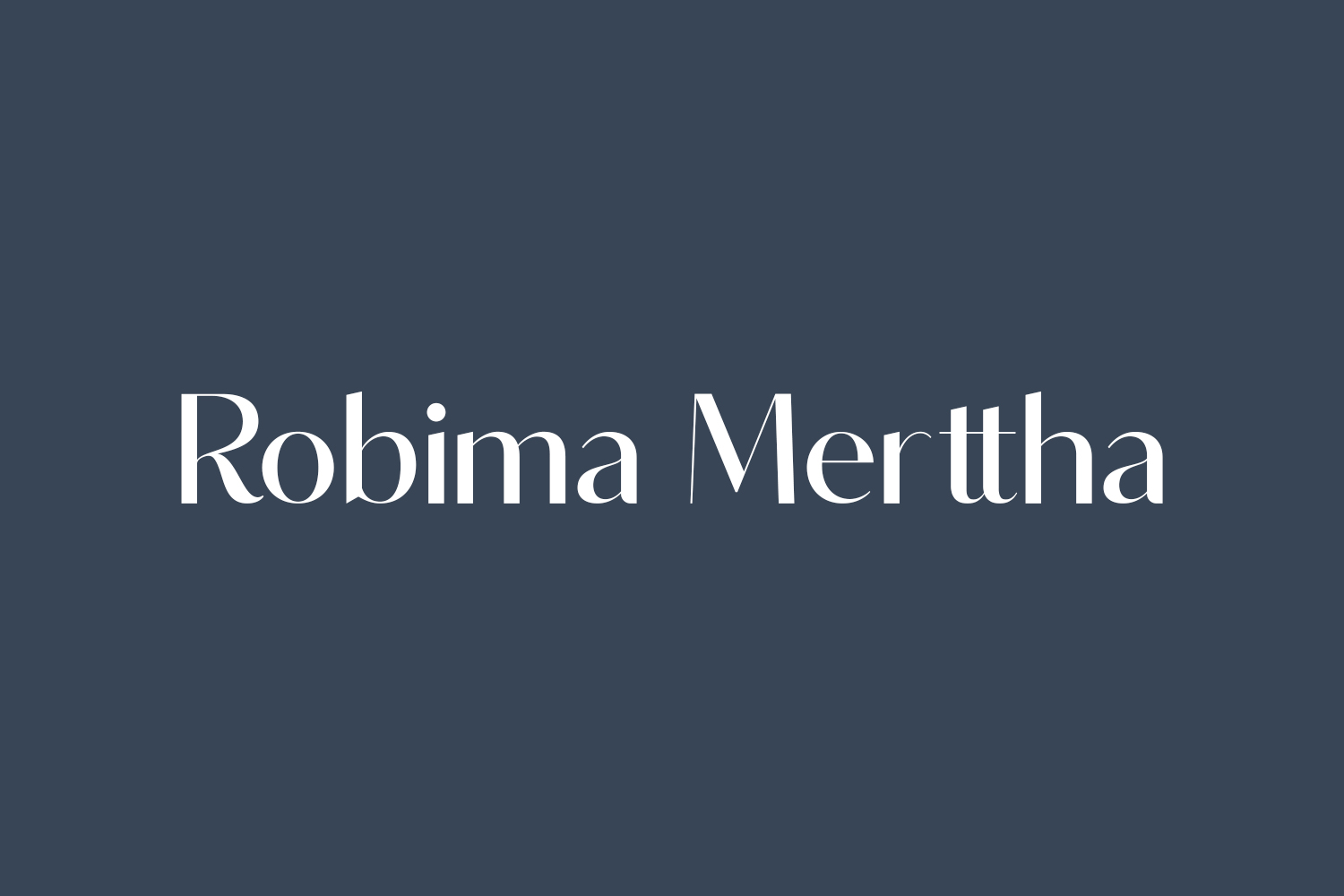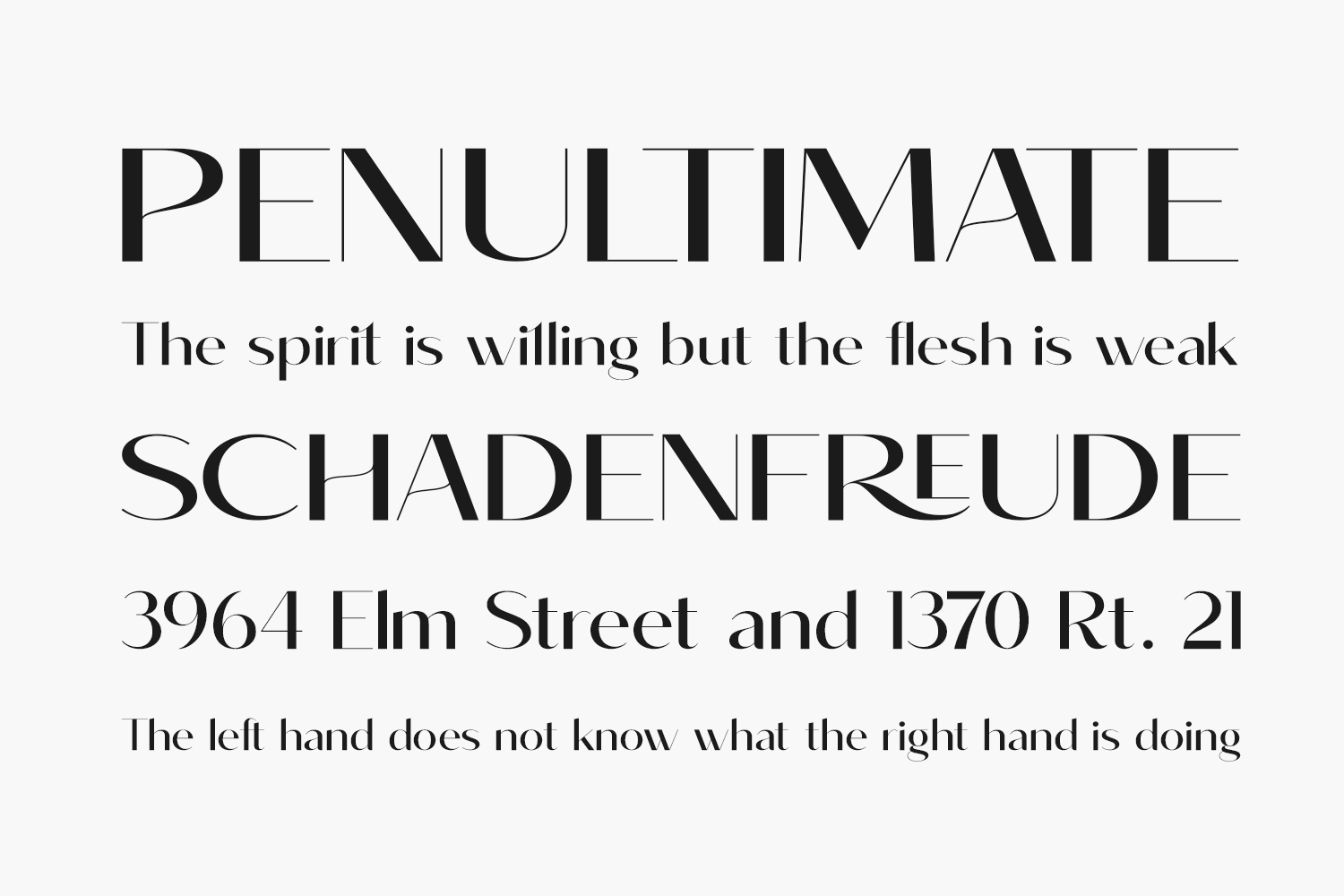
Introducing Robima Merttha Free Font Family, an elegant and contemporary font duo comprising a sans serif and script style. This versatile typeface is ideal for creating luxurious and sophisticated logos, captivating book or movie titles, fashion brands, magazine layouts, stylish clothing designs, exquisite lettering, memorable quotes, and a myriad of other creative projects. Download the font for free if you need it for personal use or purchase the full version for commercial use.